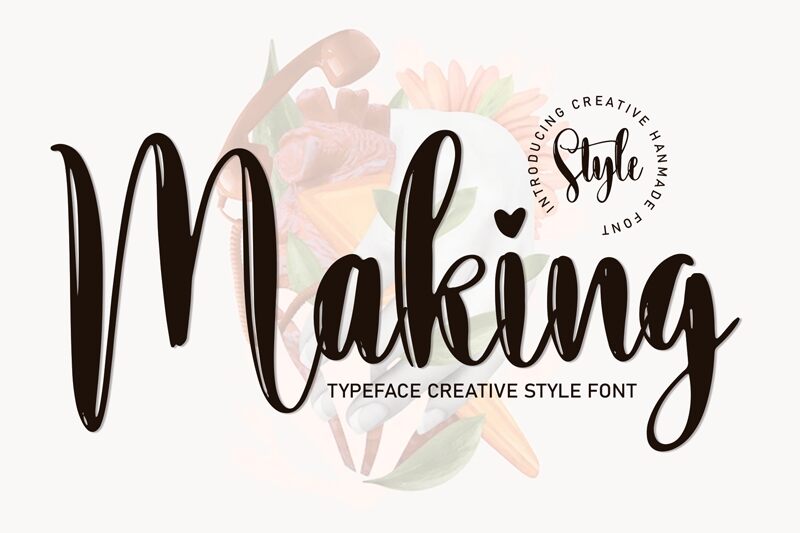
Making
Making, a captivating brush-style font crafted by Scratchones, exudes a sense of artistry and elegance. This dynamic typeface boasts fluid, expressive letterforms that evoke a handcrafted essence, seamlessly blending the organic and the refined. The sweeping strokes and subtle variations in thickness create a visually arresting impression, making this font an enchanting choice for branding, editorial design, and projects seeking a touch of sophistication and personal flair.
The versatility of Making shines through its ability to adapt to a diverse array of design applications. Whether adorning the cover of a stylish magazine, gracing the masthead of a premium lifestyle brand, or adding a personal touch to custom stationery, this font possesses the versatility to elevate any project with its captivating charm and timeless appeal.